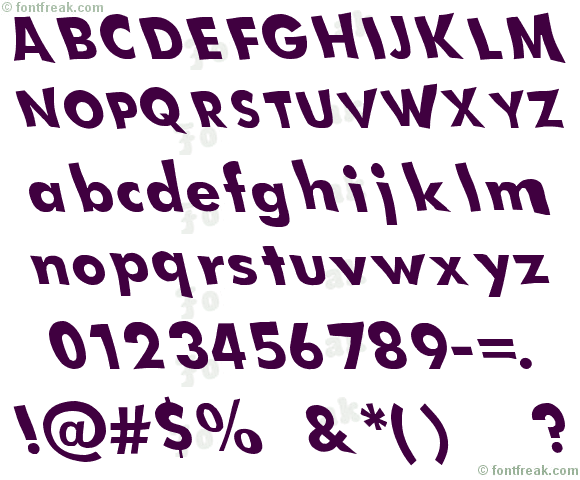
sparrow (sRB)
About Sparrow
Sparrow by Srb-powers is a captivating display font that perfectly balances elegance and modernity. With its unique design, this freeware font stands out in both digital and print applications. The Sparrow font features a bold stroke weight combined with a moderate contrast that enhances its legibility while adding an artistic flair. The carefully crafted letterforms exhibit a slight curvature, giving the typeface a friendly yet sophisticated appearance. Ample spacing between the characters allows for easy reading, making it a versatile choice for various projects.
Sparrow is an ideal font for a range of creative use cases. Its contemporary aesthetic makes it perfect for wedding invitations, where its charm can beautifully convey the joyous theme of the event. Additionally, Sparrow works wonderfully for movie posters, where its striking character shapes can draw attention and intrigue viewers. Restaurant menus can also benefit from this font, providing a touch of sophistication that enhances the dining experience. Content creators, especially those focused on branding, will find Sparrow to be a valuable asset for their marketing materials, as it effortlessly communicates a sense of professionalism and creativity.
Targeting graphic designers, small business owners, and content creators, Sparrow appeals to those looking for a unique font that sets their projects apart. Its versatility and eye-catching design make it suitable for various industries, from fashion to entertainment.
What truly makes the Sparrow font stand out is its ability to blend artistry with functionality. Whether used in a formal setting or a casual project, this font captures the essence of modern design while remaining approachable. Don’t miss the opportunity to elevate your creative work—experience the Sparrow font free download today and transform your designs with this exceptional typeface.